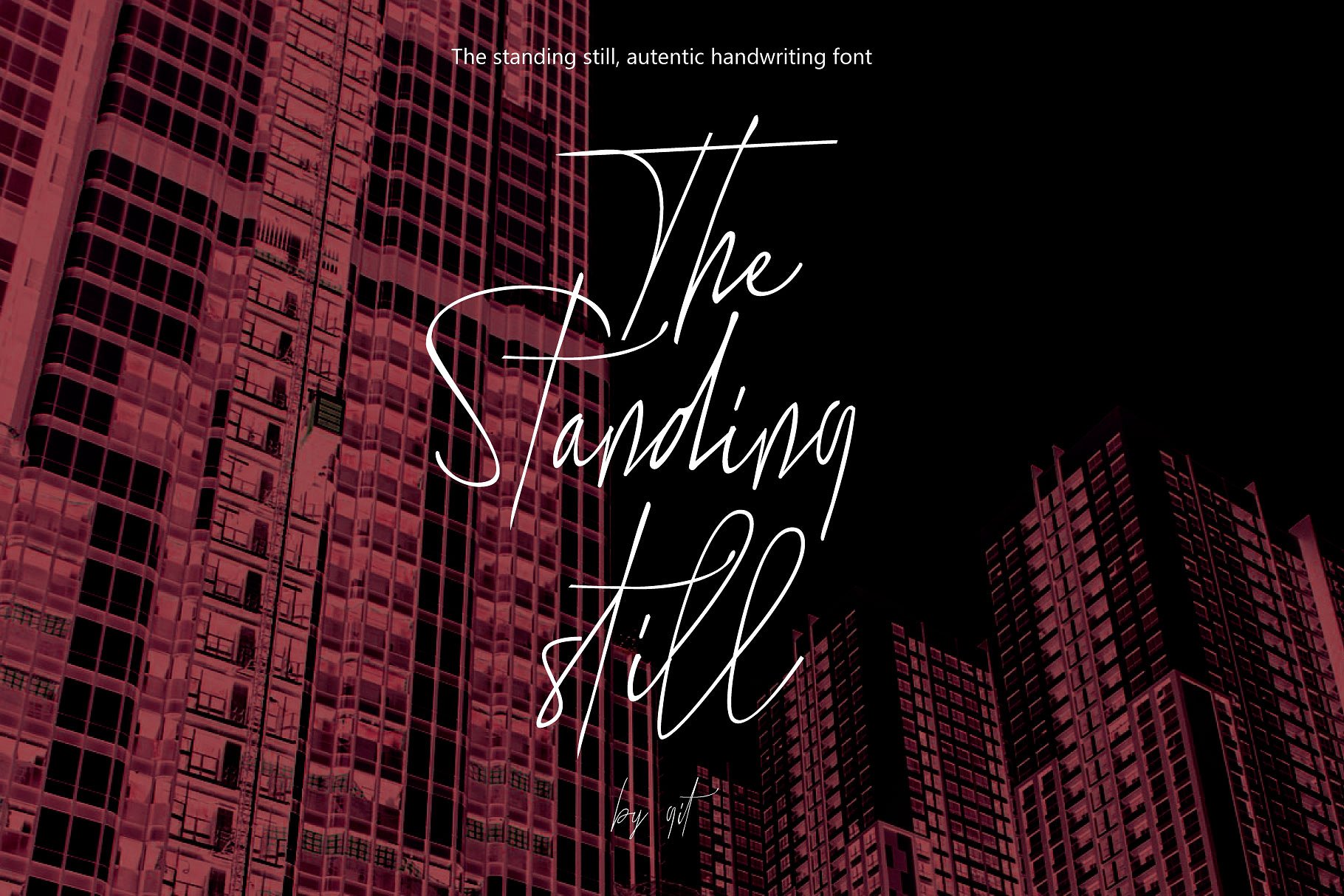
The Standing Still Script
intoducing The standing still font, script typeface. this font is from my authentic handwriting that refined digitally. micro line handwriting style suitable for wedding, food menu, fashion magazine, poster, logotype, watermark, signature, etc. this set includes full set of stylish uppercase and lowercase letters, numerals, punctuation. this font will give you realistic hand-lettered style. feature